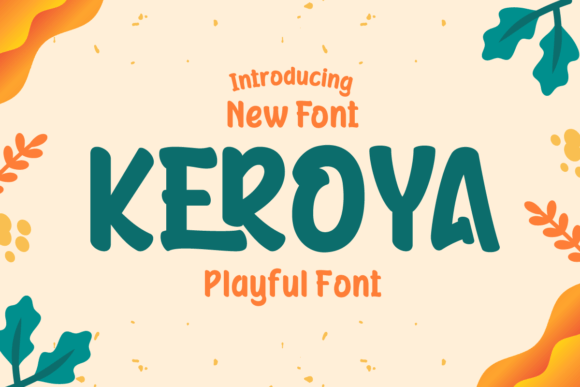
Enter the realm of playful typography with "KEROYA Font", where imagination knows no bounds! Immerse yourself in a world of creativity, where your designs come alive with a sprinkle of fun and whimsy. Whether you're crafting delightful children's books, vibrant posters that capture attention, or quirky branding materials that leave a lasting impression, KEROYA Font is your ultimate companion.
Step into a world where letters dance with joy, where each character bursts with energy and personality. KEROYA Font is meticulously crafted to infuse your designs with a playful and friendly vibe, making your content irresistible to the eyes. Say goodbye to dull and conventional fonts, and embrace the playful spirit of KEROYA Font, where your creativity takes center stage.
Unleash your inner child and let your imagination run wild. With KEROYA Font, you can effortlessly create designs that ignite smiles and spark conversations. Transform ordinary text into extraordinary expressions, captivating your audience with a font that speaks volumes. Experience the joy of designing with KEROYA Font and witness your creations come alive with a touch of magic.
Don't settle for ordinary fonts that blend into the background. Choose KEROYA Font and embark on a typographic adventure like no other. Let your designs shine with a playful spark, leaving a lasting impression on whoever encounters them. Embrace the playful side of design and watch your creations flourish with KEROYA Font.